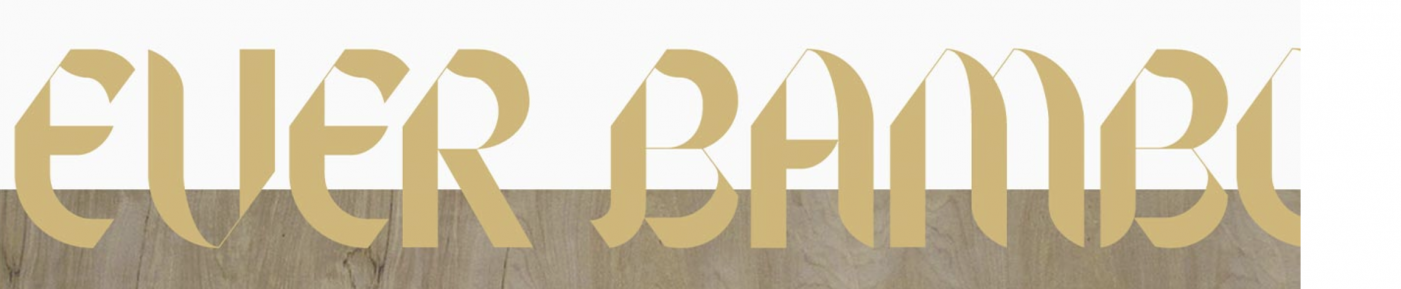
Serif-ish pen-nib face from Ever Manifesto Magazine
Looking to buy this face for a packaging project. It's from Ever Manifesto, a defunct brand/magazine. Thank you ahead of time!
I agree with Ralf, Text Regular is very similar in many respects. Looks to me like someone customised it for the magazine. My copy of Text Regular is credited as designed by Gareth Hague. You might want to contact him and see if he custom designed something similar for your brand magazine.
Thank you so much for the help! This has Gareth Hague's style on it for sure. And I found out that this magazine's designs were done by Phillip Lim who has worked often with Hague...